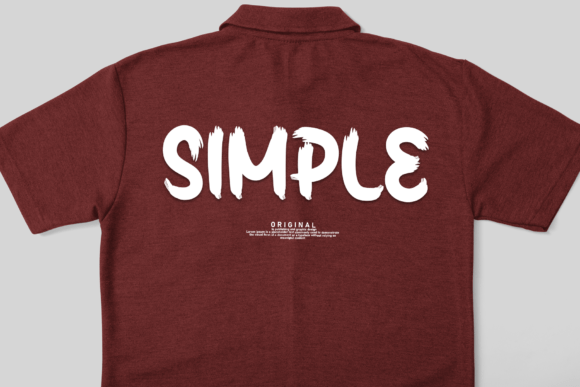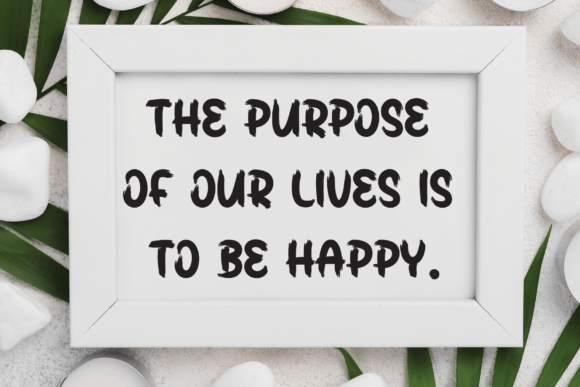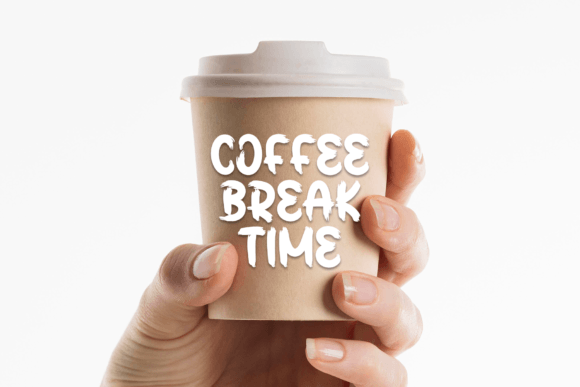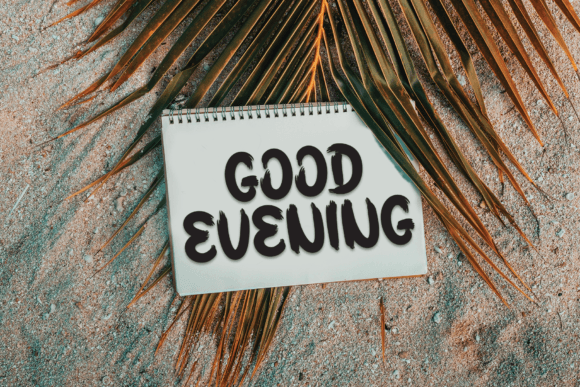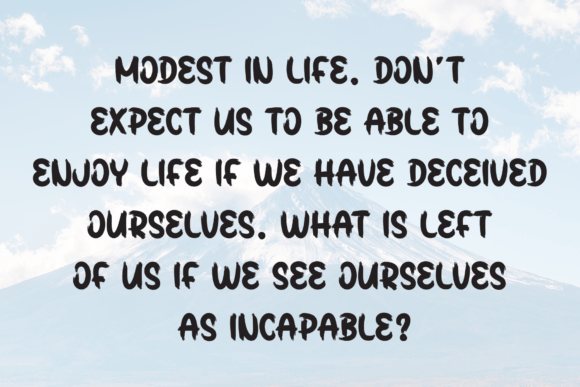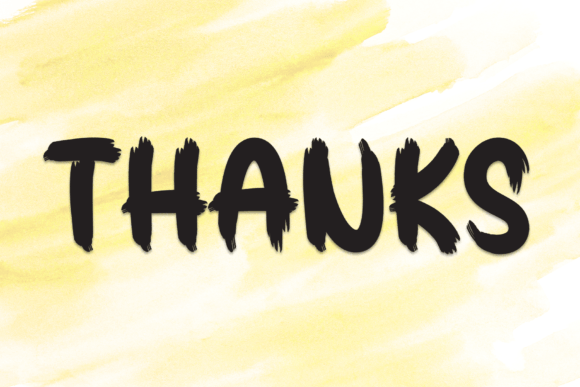
Introducing Brush Strokes Font: A Sweet and Friendly Handwritten Delight
Are you on the hunt for a font that can add a touch of warmth and personality to your designs? Look no further than Brush Strokes, a sweet and friendly handwritten font that’s perfect for a wide range of creative projects. With its natural and unique style, Brush Strokes is incredibly versatile, making it an excellent choice for designers and crafters alike.
The Charm of Brush Strokes Font
Brush Strokes Font boasts a charming, hand-crafted aesthetic that’s reminiscent of handwritten notes and letters. Its soft, flowing lines and gentle curves evoke a sense of friendliness and approachability, making it an ideal choice for designs that require a personal touch. Whether you’re working on a branding project, a craft tutorial, or a social media graphic, Brush Strokes Font is sure to add a dash of warmth and personality to your work.
What Makes Brush Strokes Font So Versatile?
The beauty of Brush Strokes Font lies in its incredible versatility. Its natural, handwritten style makes it suitable for a wide range of designs, from:
- Branding and packaging: Add a personal touch to your logo, label, or packaging design with Brush Strokes Font.
- Crafting and DIY projects: Use Brush Strokes Font to create adorable titles and headings for your craft tutorials, patterns, and projects.
- Social media graphics: Add a friendly, approachable vibe to your social media posts and graphics with Brush Strokes Font.
- Wedding and event planning: Brush Strokes Font is perfect for creating beautiful, handwritten-style wedding invitations, stationery, and decor.
The only limit to what you can create with Brush Strokes Font is your imagination! Here are a few ideas to get you started:
- Create a beautiful, handwritten-style blog header or title.
- Design a set of adorable, Brush Strokes Font-themed notecards or stationery.
- Use Brush Strokes Font to create a stunning, one-of-a-kind logo for your business or brand.
- Make a gorgeous, Brush Strokes Font-adorned sign or banner for your next event or party.
Tips for Using Brush Strokes Font
To get the most out of Brush Strokes Font, here are a few tips to keep in mind:
- Play with font sizes and styles to create visual hierarchy and emphasis.
- Combine Brush Strokes Font with other fonts and graphics to create a unique, layered look.
In conclusion, Brush Strokes Font is a sweet and friendly handwritten font that’s perfect for designers and crafters looking to add a touch of warmth and personality to their work. With its natural, unique style and incredible versatility, Brush Strokes Font is sure to become a go-to choice for a wide range of creative projects. So why wait? Get creative with Brush Strokes Font today and see what amazing designs you can come up with!